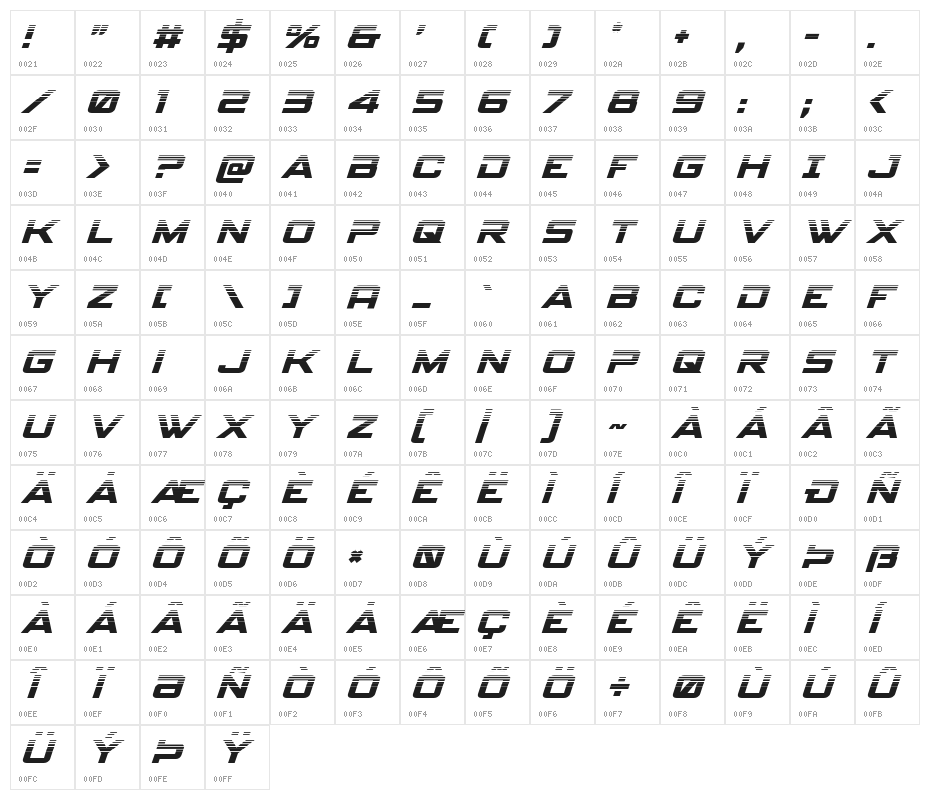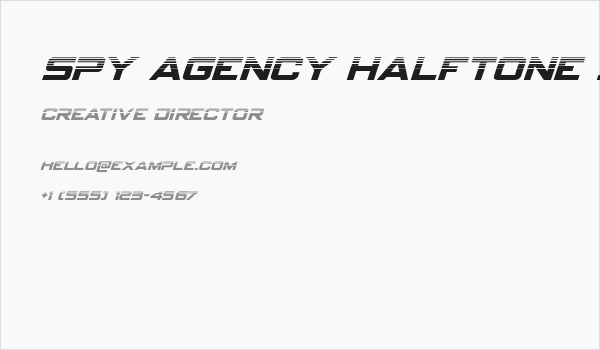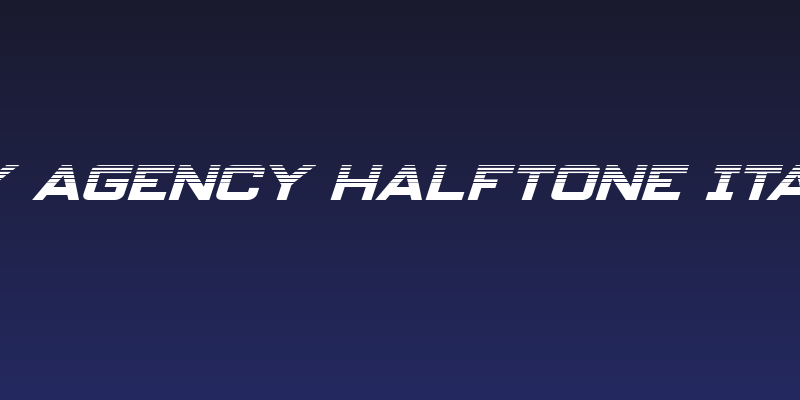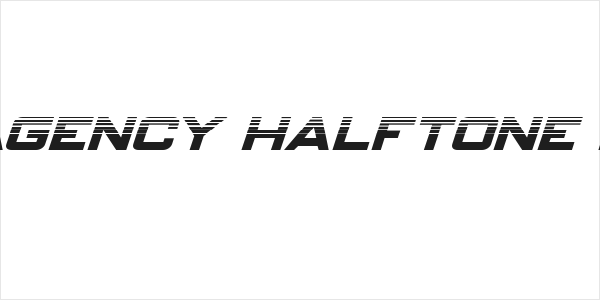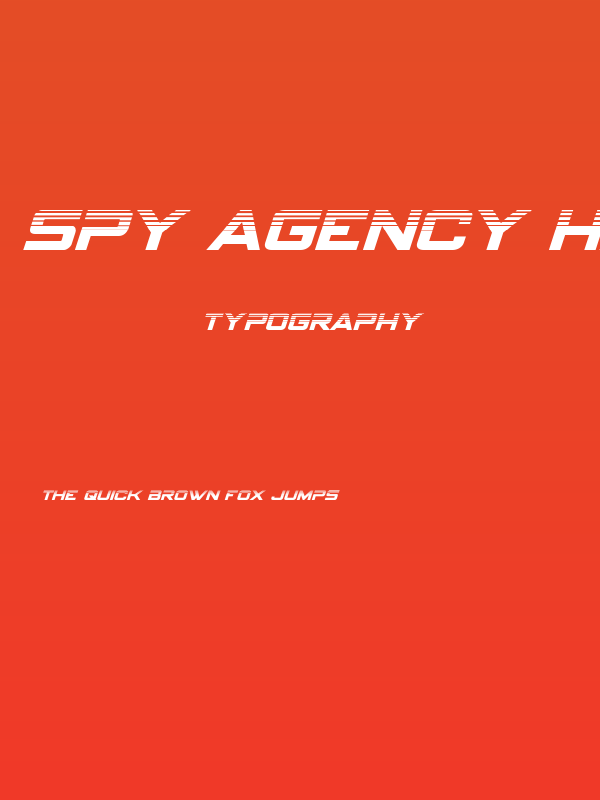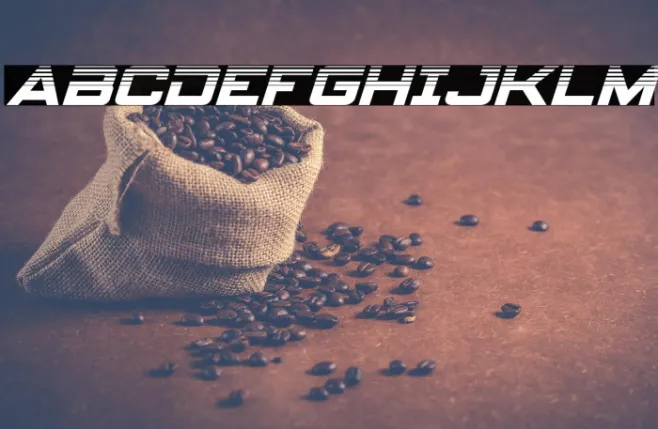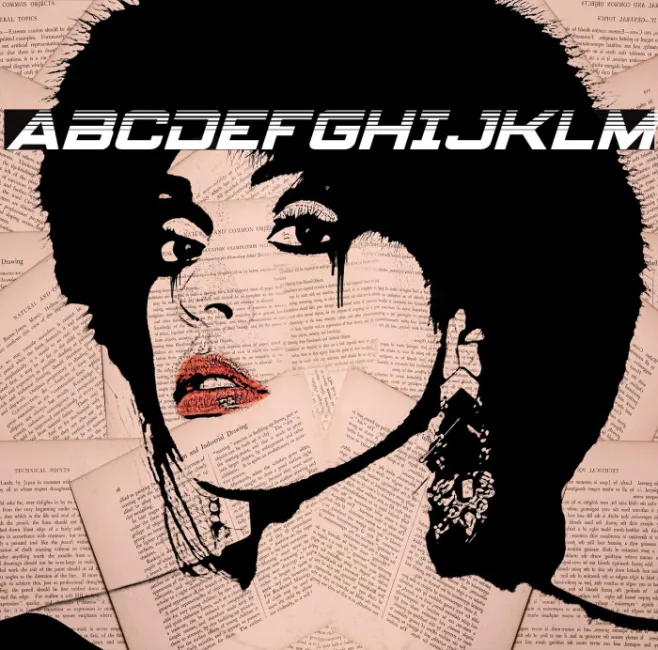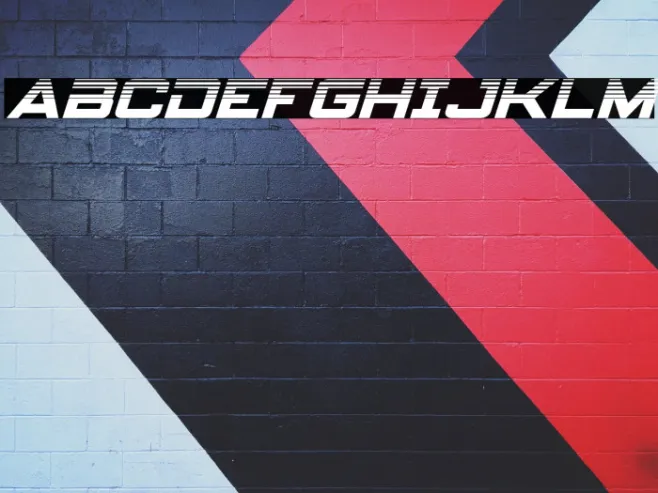
Spy Agency Halftone Italic Font
Spy Agency Halftone Italic Description
This font features a bold and dynamic design with a distinct italic slant, giving it a sense of motion and speed. The characters are constructed with a halftone effect, incorporating horizontal lines that create a unique visual texture. This design choice adds a modern, futuristic feel to the font, making it stand out in digital and print media. The uppercase letters are particularly striking, with sharp angles and a strong presence. The numerals and special characters maintain the same stylistic elements, ensuring consistency across all glyphs.
| Proposed Projects | Ideal for projects that require a modern and edgy look, such as tech branding, video game titles, or sci-fi themed posters. |